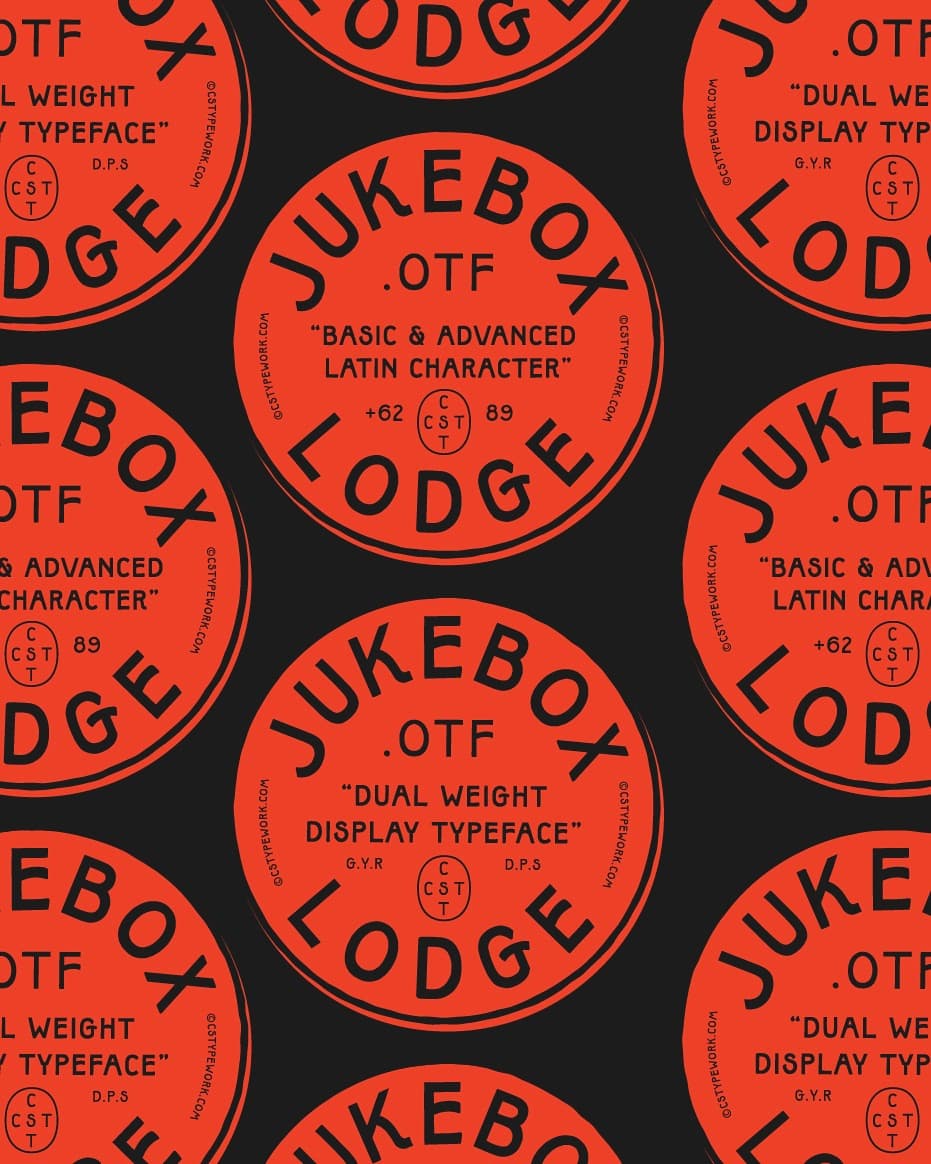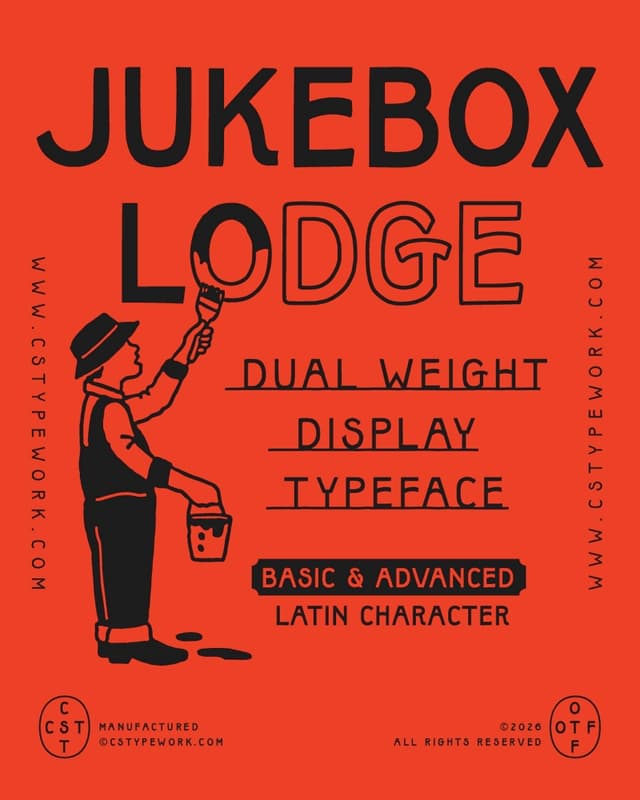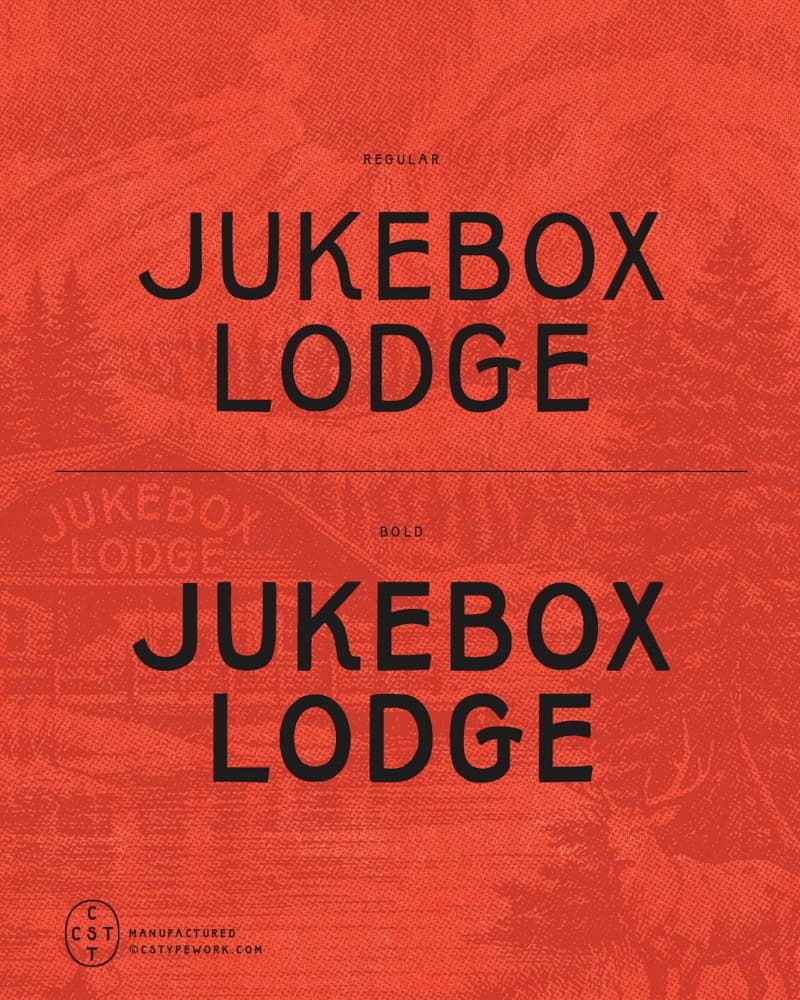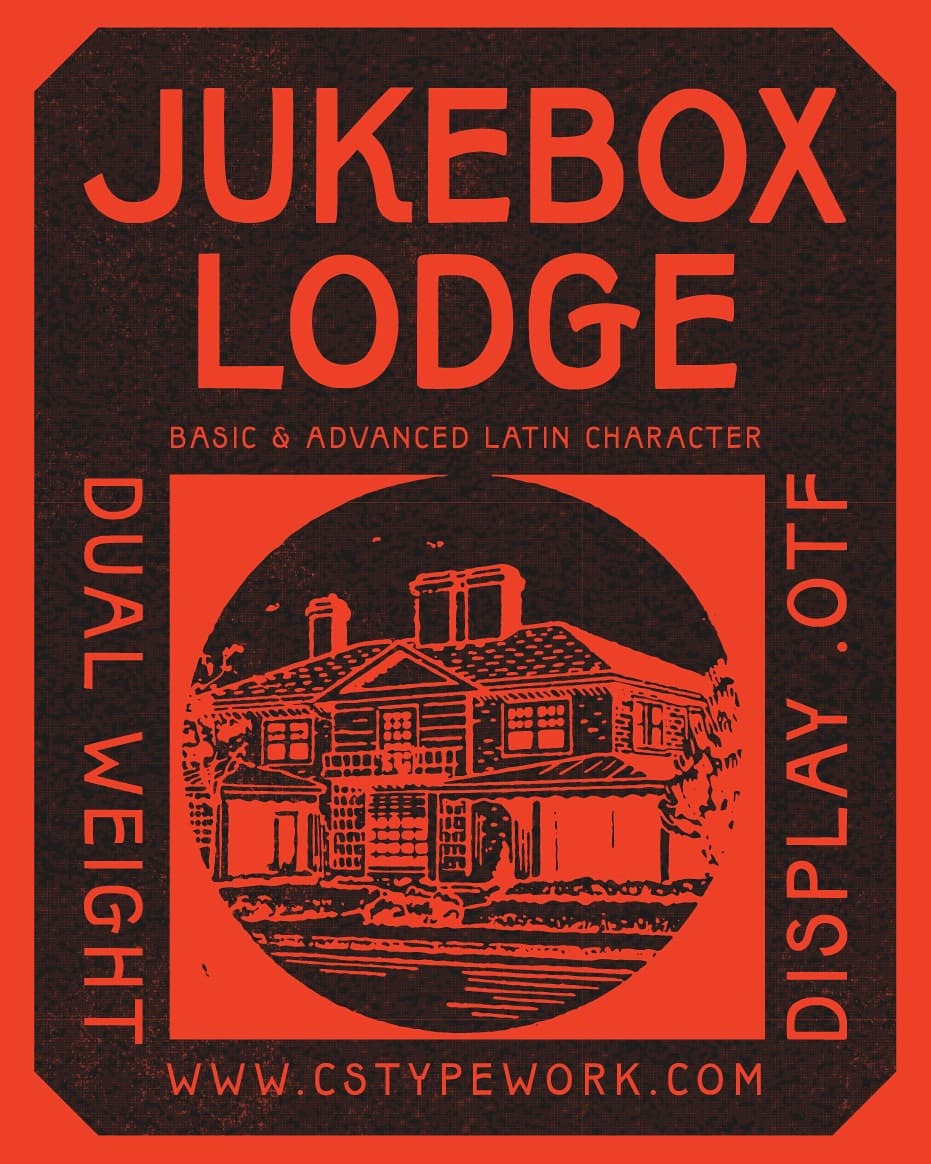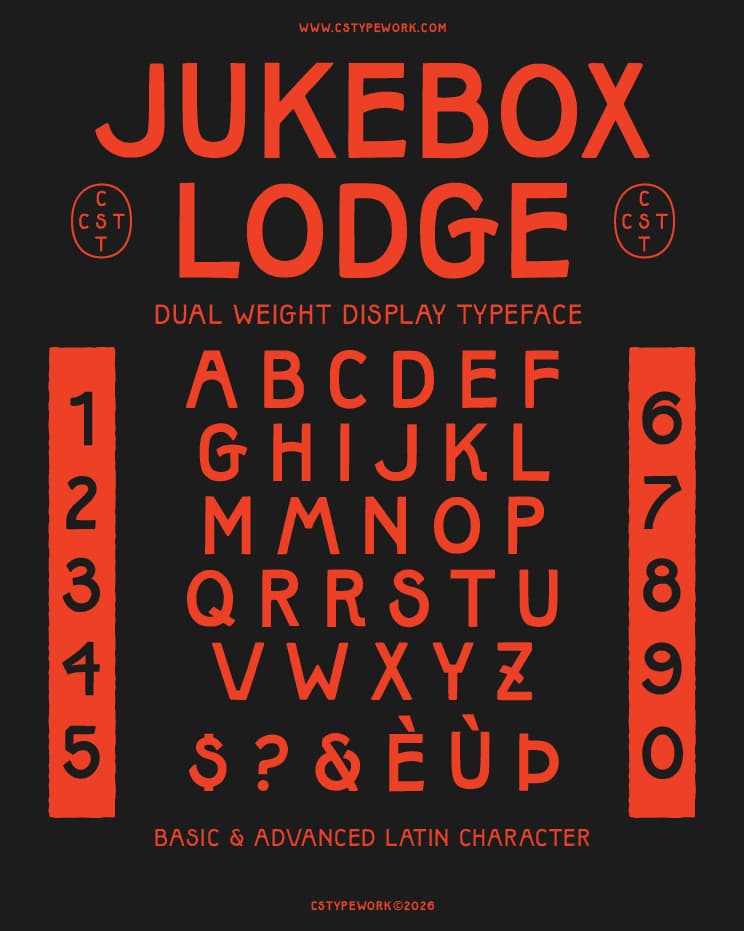
JUKEBOX LODGE CST
JUKEBOX LODGE CST Inspired by classic lodge signage, Jukebox Lodge blends bold character with a clean, modern edge.
It's unique letterforms carry a strong visual presence while remaining refined and highly versatile.
Available in Dual Weights, Regular & Bold.
This typeface is built to stand out, perfect for signage, branding, posters, packaging, and graphic compositions that need a confident typographic voice.
Crafted especially for designers and illustrators who appreciate distinctive forms with a modern finish.
Make your work speak louder with Jukebox Lodge.